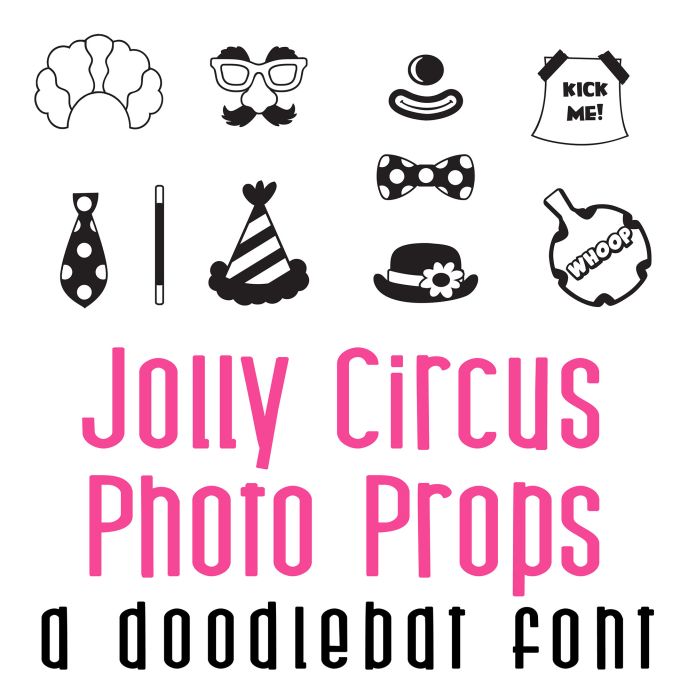
This adorable doodlebat font features 26 fun circus photo props perfect for cards, crafts, gifts, parties, classrooms, scrap book pages, planner stickers and more!